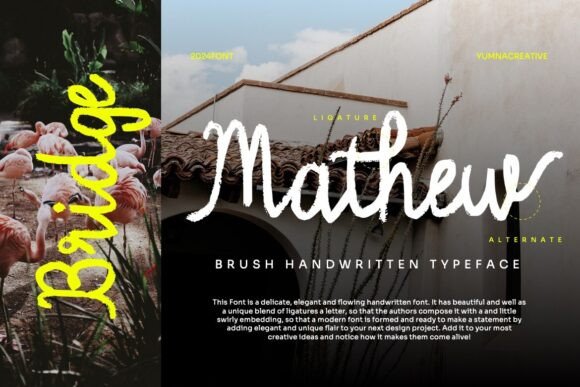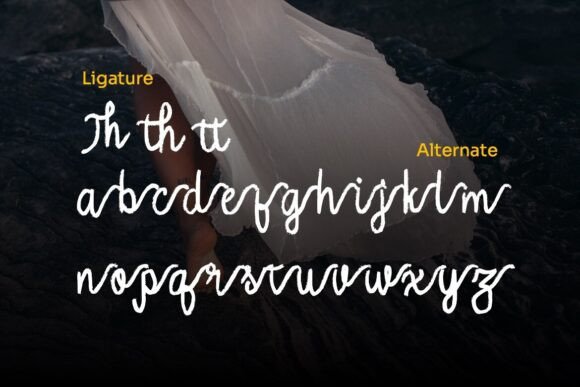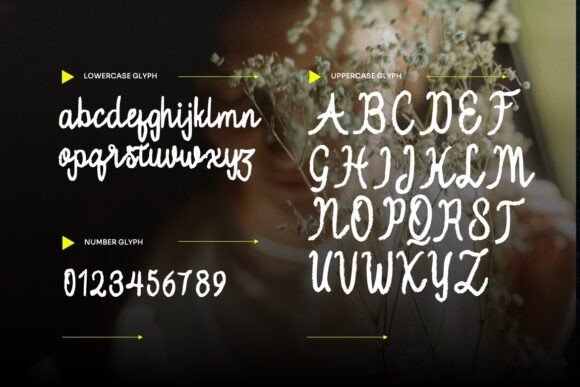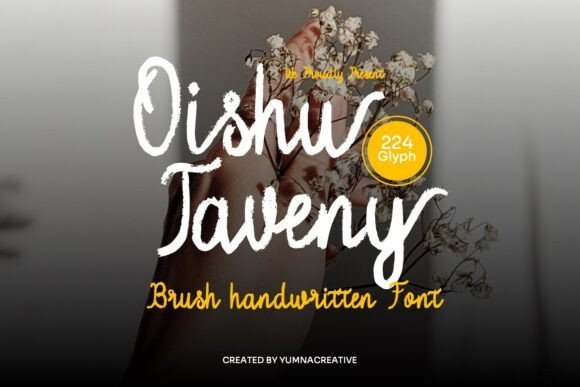
Introduction to Oishu Taveny Font
Oishu Taveny – Brush Handwritten is a beautiful and stylish font that looks like it was written with a brush.
It has a smooth, flowing design, giving it a natural and artistic feel Perfect for adding a creative touch to your projects.